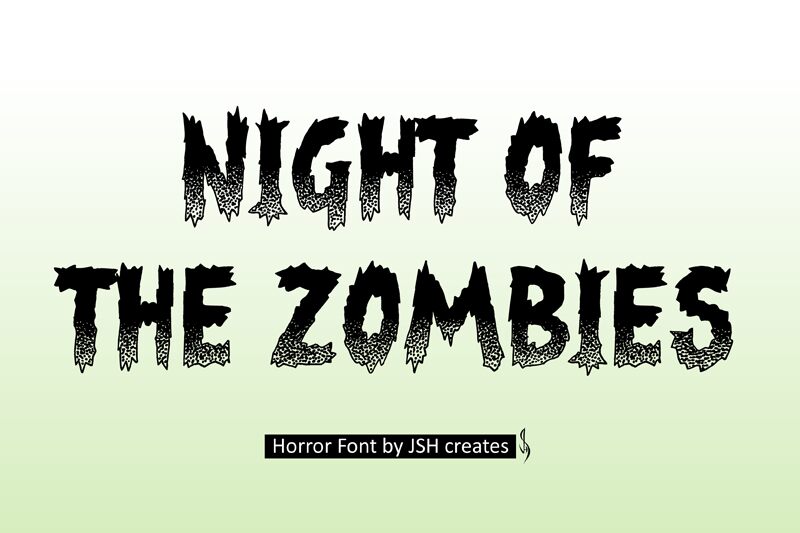
Night of the Zombies font, designed by JSH creates, captures an eerie essence that instantly evokes the thrill of horror. With its bold presence and condensed structure, this display font exudes a menacing vibe, perfect for gripping attention. The jagged edges and ghostly flourishes enhance its terrifying allure, making it ideal for Halloween promotions, spooky events, or any design seeking to invoke suspense.
Visually striking and audaciously expressive, Night of the Zombies stands out in posters, book covers, and themed graphics. Its unique character ensures that your message is not just seen but felt-drawing viewers into a thrilling atmosphere. Whether used in digital media or print, this font transforms ordinary communication into an exhilarating experience that lingers long after it’s encountered.